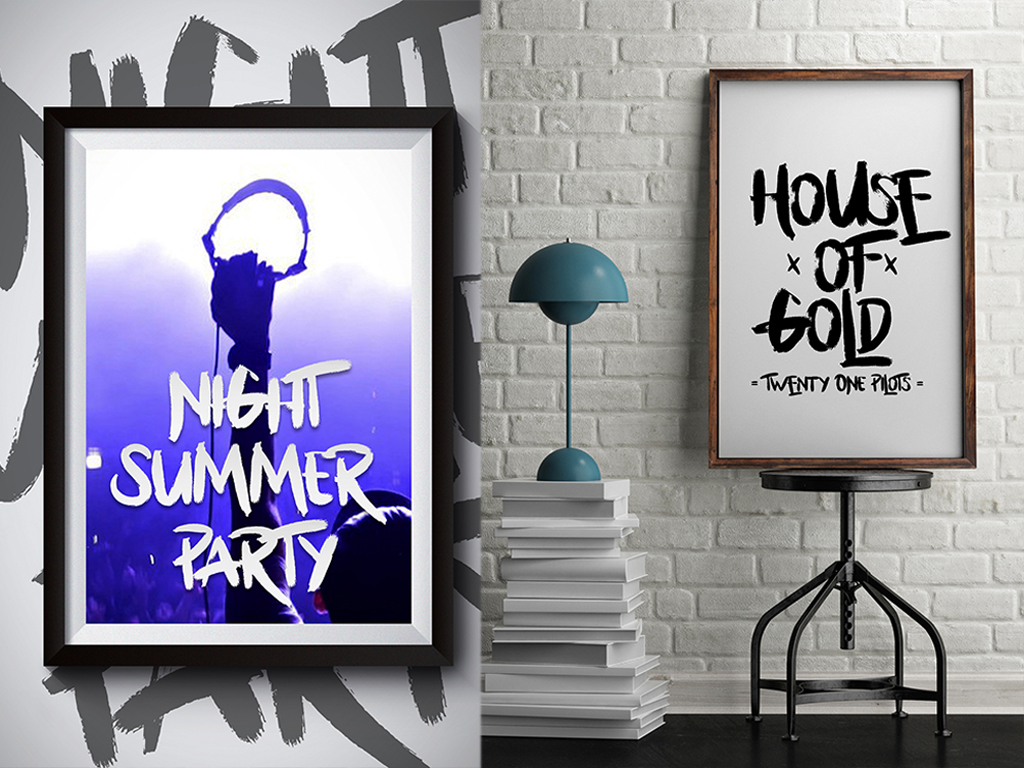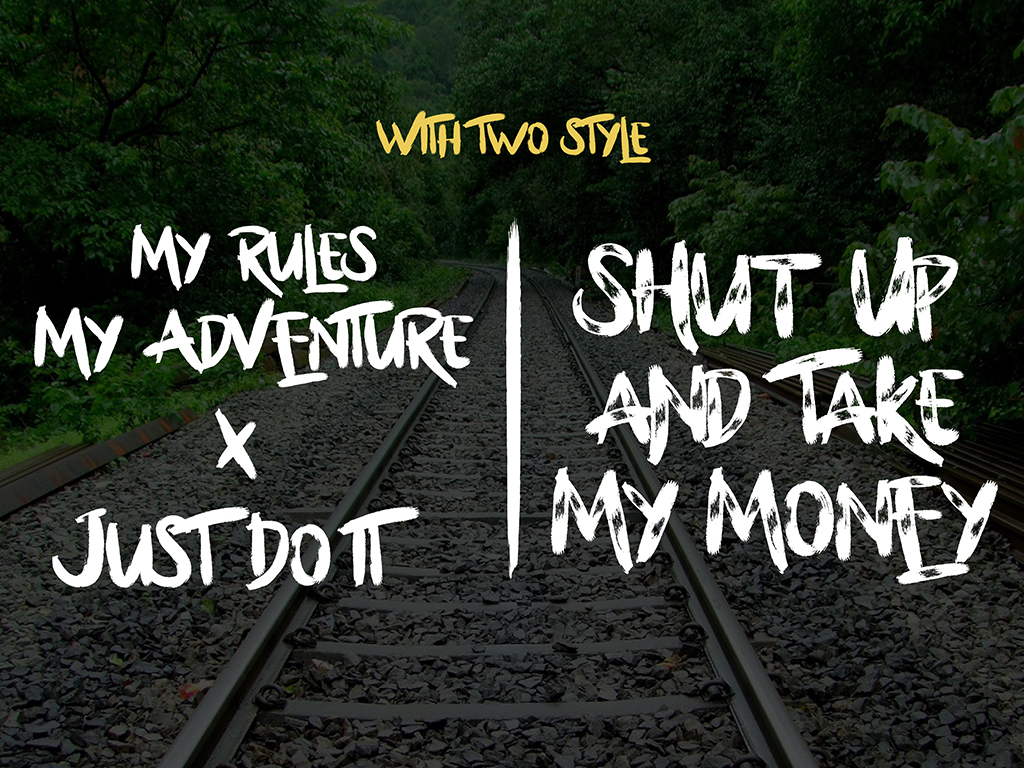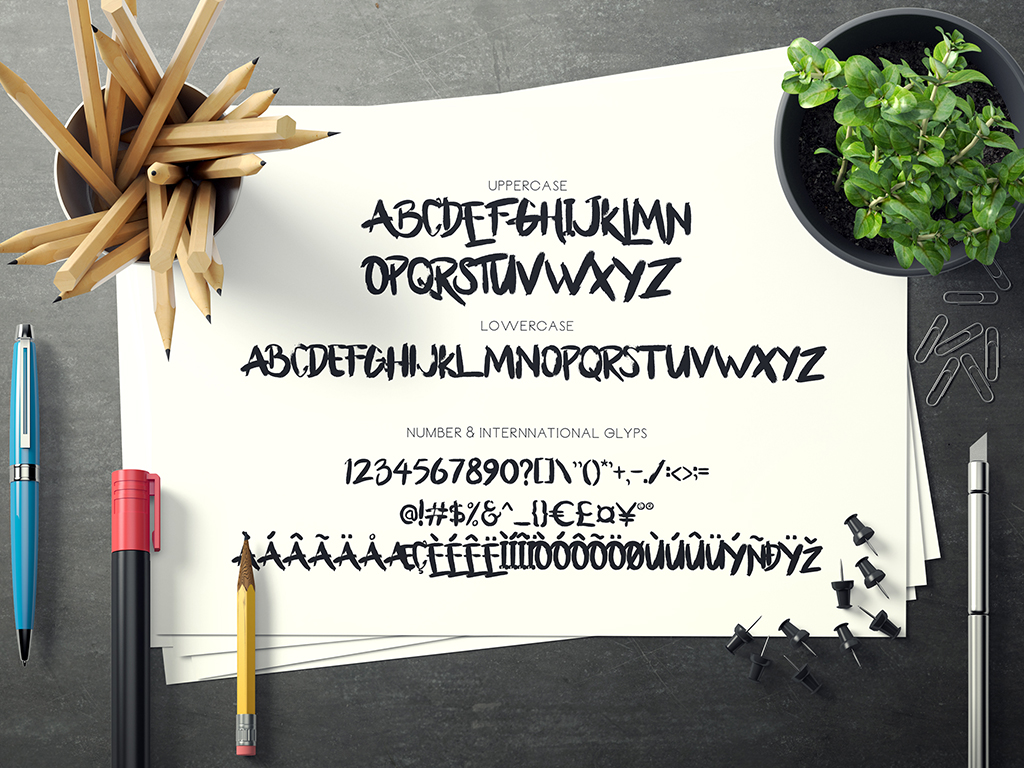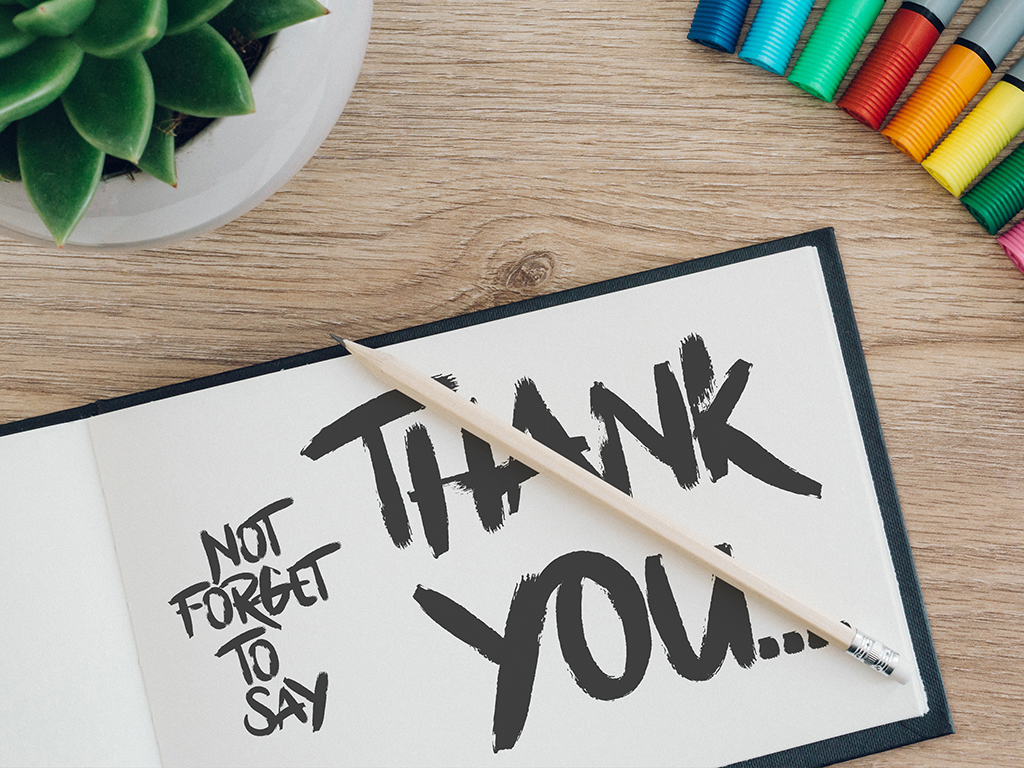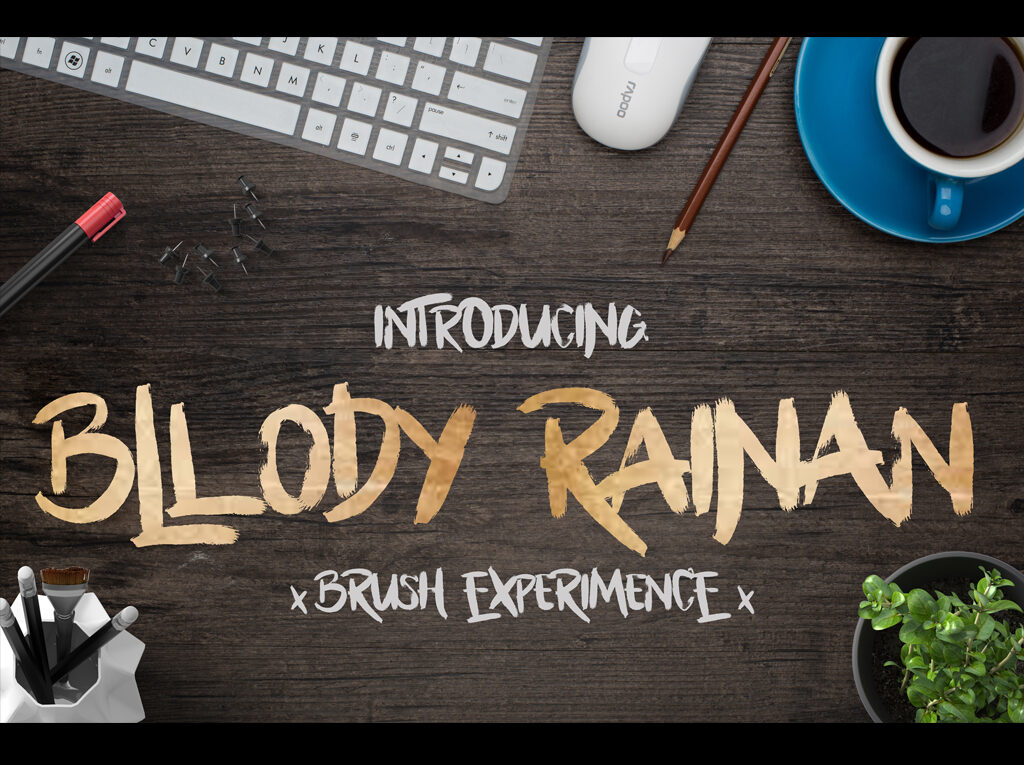
Bllody Rainan Font: Unleash Playful Fun with this Unique Brush Font
Are you tired of using the same old fonts for your branding materials? Look no further! Introducing Bllody Rainan, a rough brush font that adds a touch of playfulness and fun to any design. With its unique splashed waterpaint effect, this font is perfect for crafters, designers, and anyone looking to create eye-catching materials.
What Makes Bllody Rainan Special?
Bllody Rainan is not just any ordinary font. It’s a rough brush font with 2 unique styles, both of which also come in italics. This means you have a total of 4 font styles to play with, giving you endless possibilities for creative expression. The font’s design is inspired by splashed waterpaint, which gives it a distinctive, hand-painted look that’s sure to grab attention.
Perfect for Playful Branding Materials
So, what can you use Bllody Rainan for? The answer is anything that needs a dash of fun and playfulness! This font is ideal for:
- Logos and branding materials: Create a unique and memorable logo that stands out from the crowd.
- Social media graphics: Add a playful touch to your social media posts and stories.
- Invitations and party decorations: Make your party invitations and decorations truly special with this one-of-a-kind font.
- Crafting and DIY projects: Add a personal touch to your crafting and DIY projects with Bllody Rainan’s unique style.
Key Features of Bllody Rainan Font
Here are some key features that make Bllody Rainan a must-have font:
- Rough brush font with a unique splashed waterpaint effect
- 2 unique styles, both with italic versions (total of 4 font styles)
- Perfect for creating playful and fun branding materials
- Great for logos, social media graphics, invitations, party decorations, and crafting projects
- Easily readable and versatile for various design applications
Tips for Using Bllody Rainan Font
To get the most out of Bllody Rainan, here are some tips:
- Experiment with different font sizes and colors to create visual interest.
- Pair Bllody Rainan with a simpler font for a striking contrast.
- Use the font’s unique styles and italics to create visual hierarchy and emphasize certain words or phrases.
- Don’t be afraid to get creative and try out new and innovative design ideas!
In conclusion, Bllody Rainan is a one-of-a-kind font that’s sure to add a touch of playfulness and fun to any design. With its unique splashed waterpaint effect and 4 font styles, it’s perfect for crafters, designers, and anyone looking to create eye-catching branding materials. So why wait? Download Bllody Rainan today and unleash your creativity!